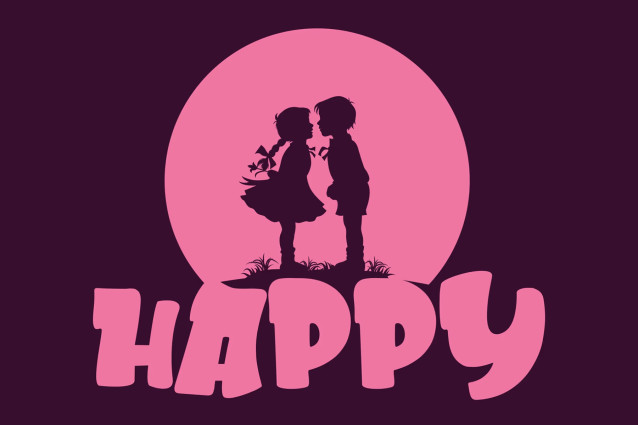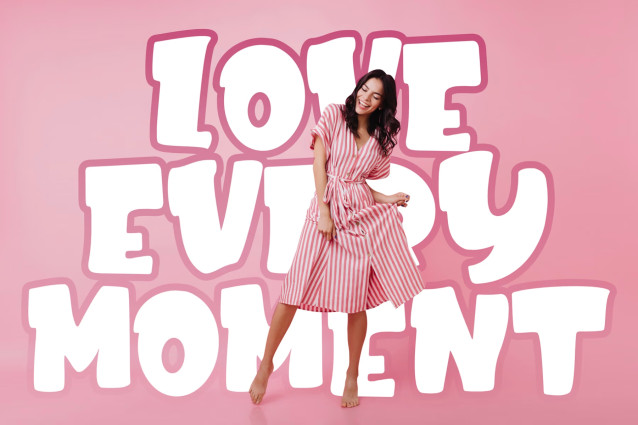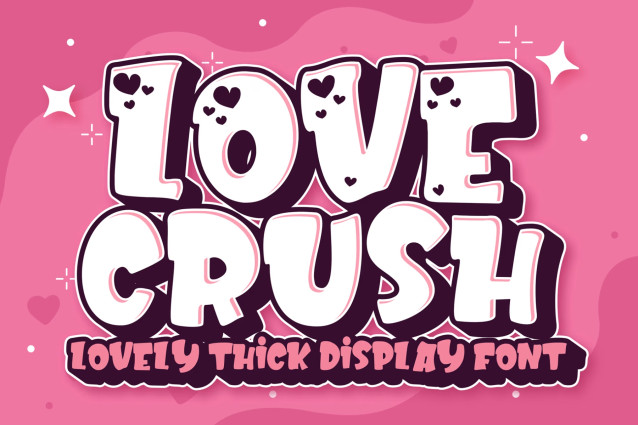
Love Crush Lovely Display Font brings a warm, expressive personality to creative work that needs more charm than an ordinary typeface can provide. Created as an all-caps display font, it gives headlines, names, short phrases, and statement text a clear visual presence while keeping the overall mood friendly and decorative.
The package includes two complementary versions: a clean version and a decorative version. This combination gives designers more freedom when building a complete visual composition. Use the clean version when the surrounding artwork already contains illustrations, patterns, or detailed elements. Switch to the decorative version when the typography needs to become the main visual feature.
Love Crush is especially suitable for designers, small business owners, content creators, crafters, packaging creators, and digital product sellers looking for typography with a lovely and approachable character. Its expressive direction works naturally in romantic concepts, cheerful branding, heartfelt messages, celebration graphics, and playful lifestyle products.
Rather than relying on a single appearance, the two included versions help you create visual variety while maintaining a consistent typographic identity throughout your project.